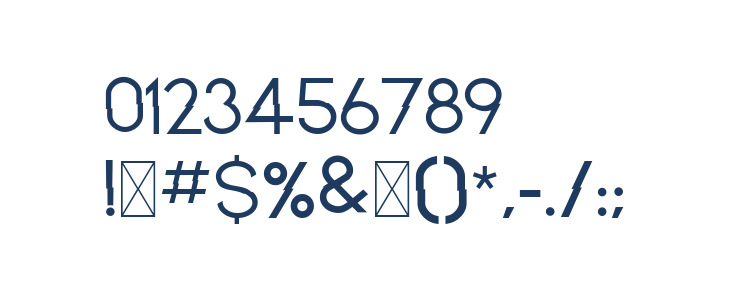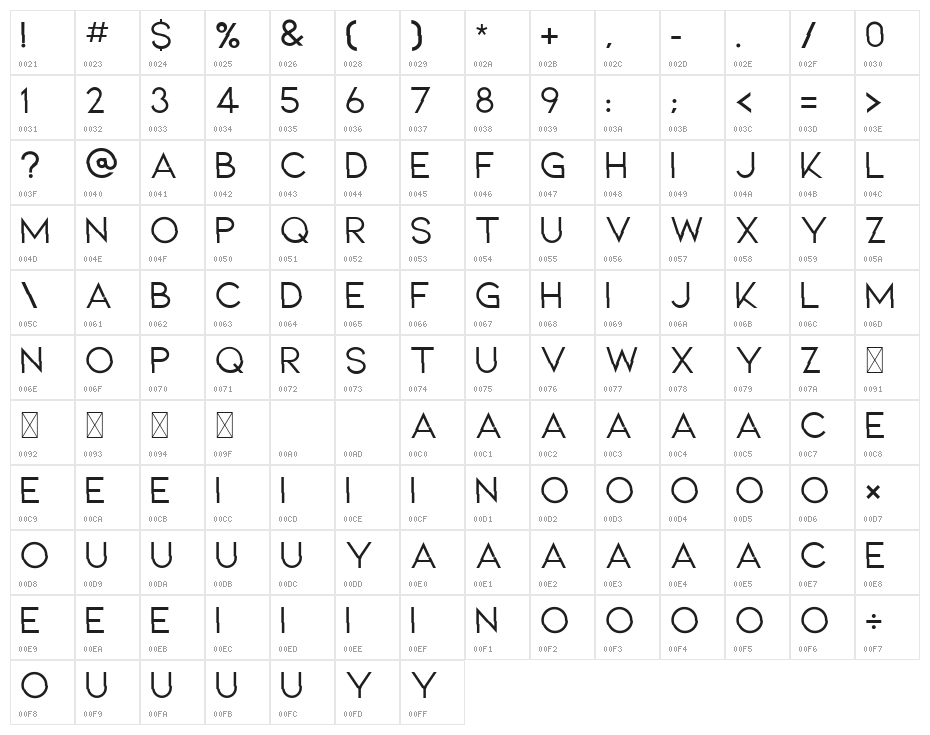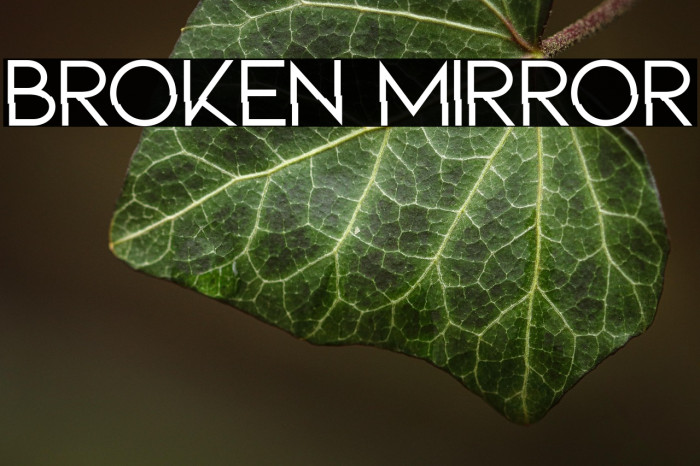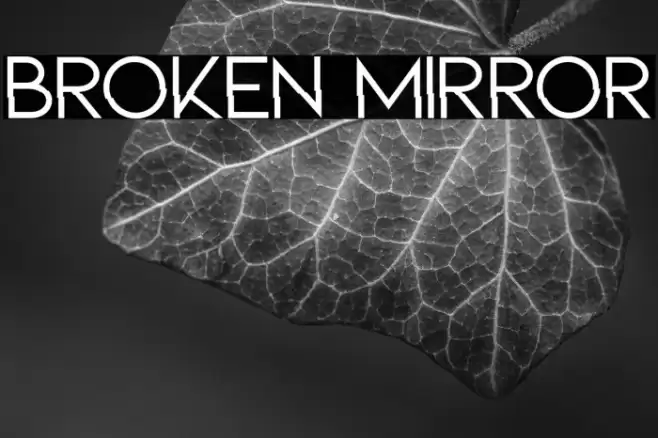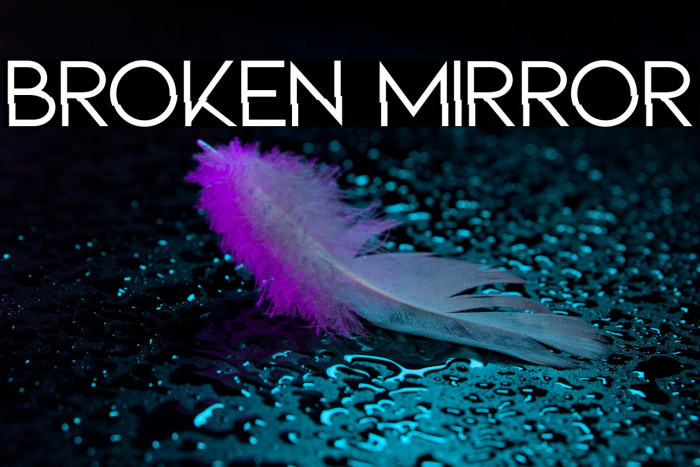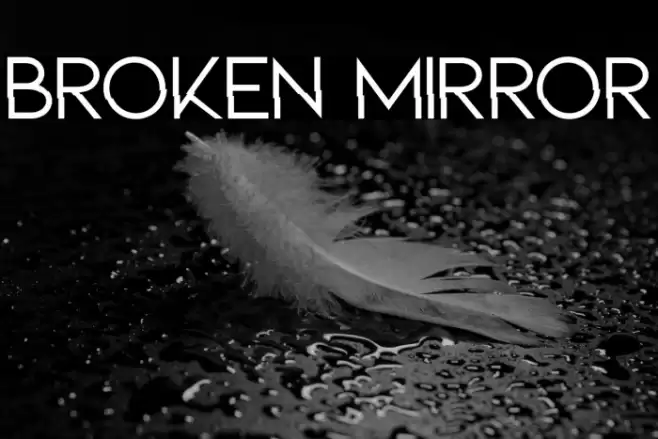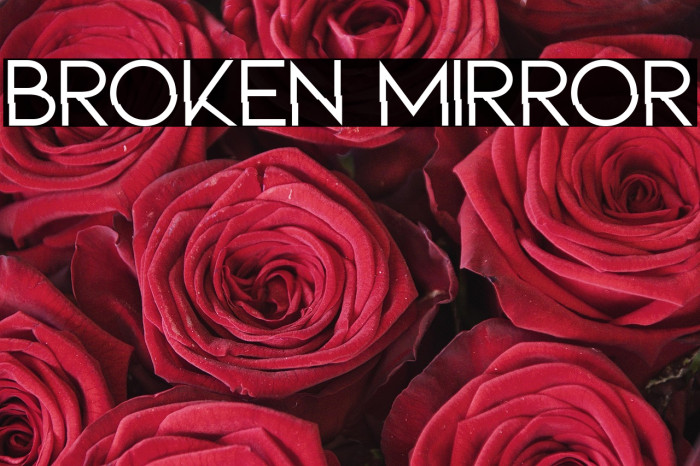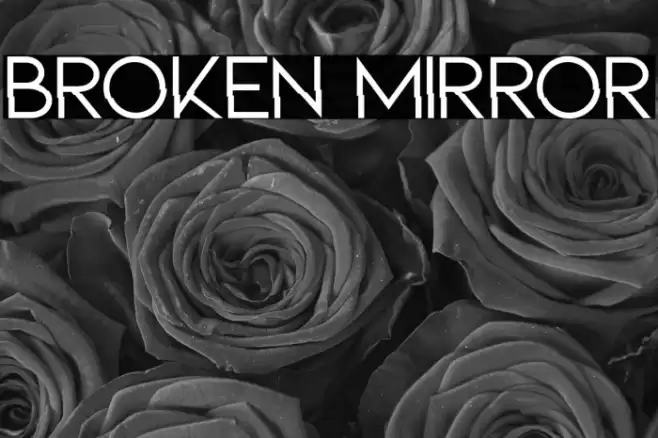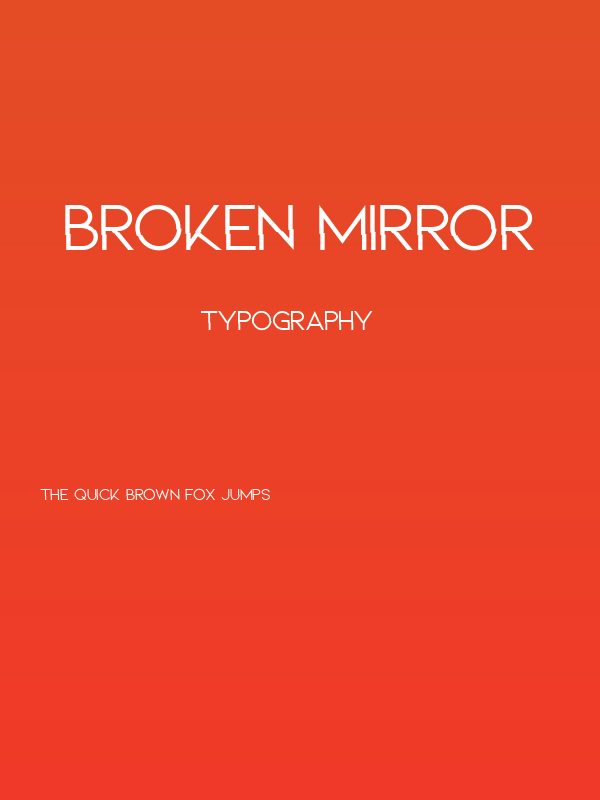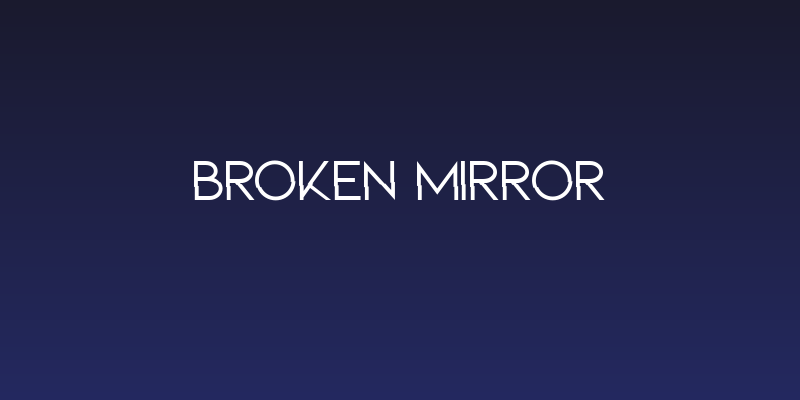
BROKEN MIRROR Font
BROKEN MIRROR Description
This font features a unique, fragmented design that gives the impression of shattered glass or broken mirrors. Each character is composed of sharp, angular lines with intentional gaps, creating a striking visual effect. The uppercase and lowercase letters maintain a consistent style, with a geometric and modern aesthetic. The numerals and special characters follow the same design principles, ensuring uniformity across all glyphs. This font's distinct appearance makes it ideal for projects that require a bold and unconventional look.
| Proposed Projects | Ideal for edgy branding, album covers, posters, and modern art installations. |